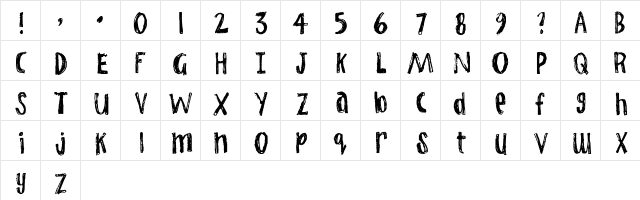
Jump Start Regular
Design Context for Jump Start
Jump Start is a composed and adaptable typeface that performs quietly and consistently across a wide range of design contexts.